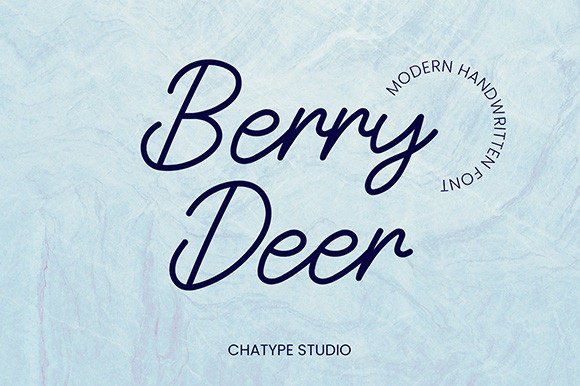
The Berry Deer Font: A Modern Handwritten Gem
Have you ever been in the middle of a design project, and suddenly, the font you’ve been working with just doesn’t cut it? I recall a particularly frustrating experience when I was working on a branding project for a fashion client. I had to create a logo, and my go-to fonts just weren’t giving me the vibe I wanted. That’s when I stumbled upon the Berry Deer font, and it completely transformed my design.
The Berry Deer font has quickly become one of my favorites, and here’s why:
• ✨ Unique and modern style: Berry Deer brings a fresh, handwritten look that’s perfect for projects that need a personal touch.
• ✅ Versatile: This font is suitable for a wide range of projects, from quotes and logos to blog headers, posters, and stationery.
• ✅ Easy to read: Despite its handwritten nature, Berry Deer is surprisingly legible, even at smaller sizes.
Of course, no font is perfect, and Berry Deer has a few quirks:
• 🤔 Limited character set: While Berry Deer has a wide range of characters, it may not have every special character or glyph you need.
• ⚠️ Not ideal for body text: Due to its handwritten nature, Berry Deer is best used for headings, titles, and short paragraphs.
3. Experiment with OpenType features, such as Stylistic Alternates, to add more personality to your text.
The Story Behind Berry Deer
Berry Deer was designed by a talented type designer who wanted to create a font that was both modern and personal. Inspired by the beauty of nature and the elegance of handwritten scripts, Berry Deer was born. With its unique style and versatile nature, it’s no wonder this font has become a favorite among designers and crafters.
Font Name Berry Deer Font
Author chatype studio
Q: What type of projects is Berry Deer best suited for?
A: Berry Deer is perfect for projects that need a personal touch, such as quotes, logos, blog headers, posters, and stationery.
Q: Does Berry Deer have any special features?
A: Yes, Berry Deer has a range of OpenType features, including stylistic alternates and glyphs, which can add more personality to your text.
Q: Is Berry Deer easy to read?
A: Despite its handwritten nature, Berry Deer is surprisingly legible, even at smaller sizes, making it perfect for headings and short paragraphs.